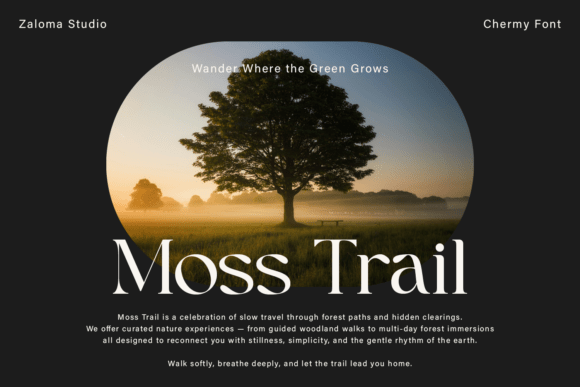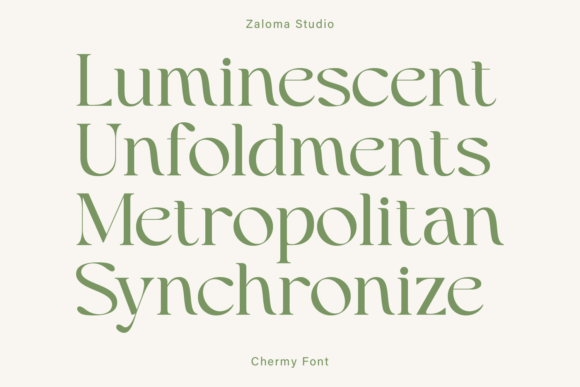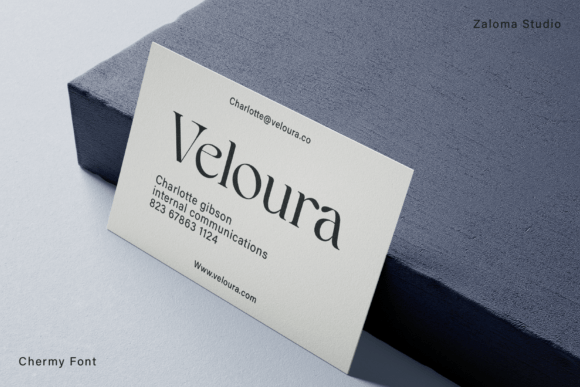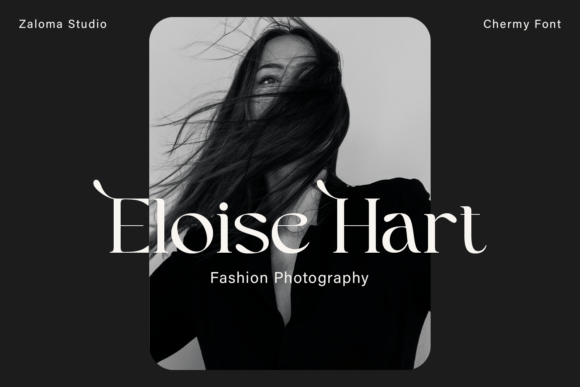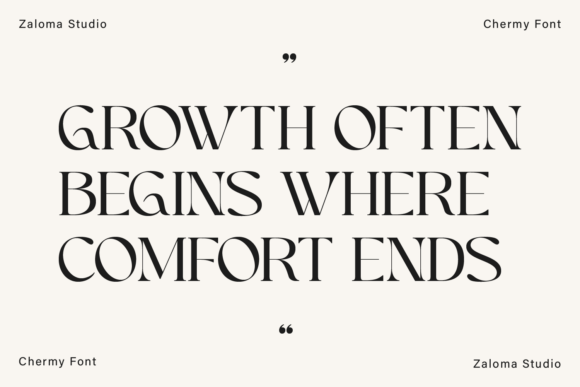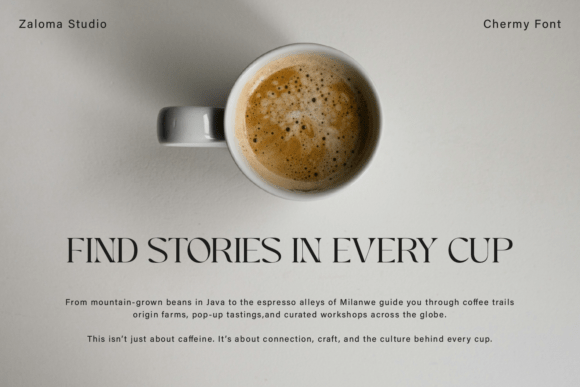
Introducing Chermy Font: The Epitome of Modern Elegance
In the realm of typography, few fonts manage to strike a balance between timeless sophistication and modern flair. Chermy Font, however, achieves this delicate balance with remarkable finesse. As a modern display serif typeface, Chermy seamlessly blends classic elegance with a contemporary edge, making it an indispensable asset for designers and crafters seeking to make a bold statement.
The Distinctive Characteristics of Chermy Font
Chermy Font is distinguished by its smooth curves, high contrast strokes, and meticulously refined details. These features collectively imbue Chermy with a sense of luxury and sophistication, setting it apart from more conventional typefaces. The high contrast between thick and thin strokes adds a dynamic quality, while the smooth curves ensure a fluid and approachable feel.
One of the standout qualities of Chermy Font is its versatility. Whether you’re working on editorials, branding projects, logos, fashion designs, or any other project that demands a bold and elegant typographic solution, Chermy proves to be an excellent choice. Its unique character shapes, sharp serifs, and graceful terminals not only lend a touch of charm to any design but also ensure readability—a crucial factor in effective communication.
Why Choose Chermy Font?
For designers and crafters, the decision to use a particular font often hinges on its ability to convey a specific aesthetic or mood. Chermy Font excels in this regard, offering a typographic solution that is both visually striking and deeply expressive. Here are a few compelling reasons to choose Chermy for your next project:
- Elegance and Sophistication: Chermy’s design elements work in harmony to create a sense of luxury, perfect for projects that require a touch of high-end flair.
- Readability and Impact: Despite its elegant and refined appearance, Chermy maintains a high level of readability, making it suitable for a wide range of applications, from headlines to body text.
- Versatility: Chermy’s adaptability ensures it can be used across various design projects, from fashion magazines and branding campaigns to logos and digital interfaces.
- Unique Character: Chermy’s distinctive character shapes and serifs provide a unique aesthetic that can help differentiate your design from more generic or commonly used typefaces.
Design Tips for Using Chermy Font
To maximize the impact of Chermy Font in your designs, consider the following tips:
- Pair with Complementary Fonts: When combining Chermy with other fonts, opt for typefaces that complement its elegant and modern characteristics. Simple sans serifs or classic serif fonts can create a harmonious contrast.
- Experiment with Sizes and Weights: Chermy Font comes in various weights, allowing for a range of design possibilities. Experiment with different sizes and weights to achieve a balanced and visually appealing hierarchy.
- Pay Attention to Color: The luxury feel of Chermy can be further accentuated by thoughtful color choices. Neutral tones like black, white, and navy blue can enhance its sophisticated appeal, while bold colors can add a modern twist.
Chermy Font stands as a testament to the power of typography in design. Its perfect blend of modernity and elegance makes it a valuable tool for designers and crafters aiming to leave a lasting impression. Whether you’re crafting a brand identity, designing a fashion editorial, or creating a compelling logo, Chermy offers the sophistication, versatility, and unique charm needed to elevate your project. Embrace Chermy Font in your next design venture and experience the impact of truly exceptional typography.